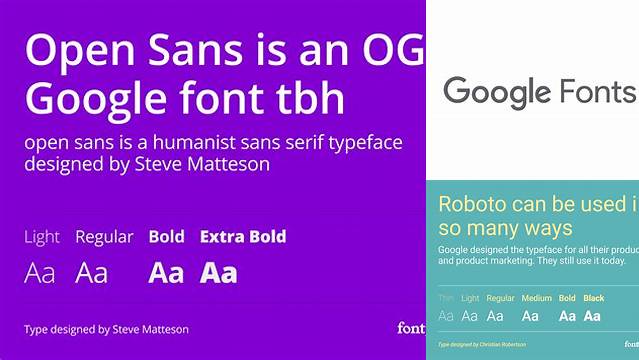
Google Fonts: Open Sans & Roboto CSS Explained
Hey guys! Let's dive into the world of web typography, specifically focusing on how to use Google Fonts, with a spotlight on two popular choices: Open Sans and Roboto. We'll explore how to integrate these fonts into your website using the Google Fonts API, looking at the CSS implementation and why these fonts are so widely used. It’s all about making your website look good and readable, right? So, let's get started! This guide will walk you through the ins and outs, making sure you understand everything clearly. No jargon, just straightforward explanations to help you get those fonts up and running smoothly. We'll cover everything from the basics of the <link>
tag to choosing the right font weights. Ready? Let’s roll!
3. Implementing Open Sans and Roboto in Your CSS
Now that you've got the fonts linked in your HTML, it's time to tell your CSS how to use them. This is where the magic really happens, transforming your website's typography. In your CSS file, you use the font-family
property to specify which font to use. For example, to apply Open Sans to all your paragraph tags, you would write: p { font-family: 'Open Sans', sans-serif; }
. Notice the sans-serif
part? It's a fallback font. If, for some reason, the Open Sans font fails to load, the browser will use a generic sans-serif font instead, ensuring that the text is still readable. Similarly, for Roboto, you can use: h1 { font-family: 'Roboto', sans-serif; }
. You can apply these styles to any element you want: headings, paragraphs, navigation, or anything else. The key is to be consistent throughout your website. Choose a primary font (like Open Sans or Roboto) for body text and a complementary font for headings. This helps create a cohesive and professional design. When you specify the font, you also have the option to choose different weights and styles within your CSS. If you've selected bold styles, for example, you can use font-weight: bold;
or font-weight: 700;
in your CSS. Choosing the right weights and styles can make a big difference in how your content is perceived. Remember to keep your design readable. Avoid using too many different fonts or styles, which can make your website look cluttered. Stick to a few key fonts and use them consistently throughout your site for the best results.
4. Open Sans: A Deep Dive into the Font
Open Sans is like the trusty friend of the font world. It's a humanist sans-serif font designed by Steve Matteson. Its simple and straightforward design makes it incredibly versatile. Open Sans is known for its open forms and neutral, yet friendly appearance, making it ideal for both body text and headings. This is why it's used everywhere, guys! Open Sans is very readable on screens of all sizes, whether it's a phone, tablet, or desktop. Its clean lines and excellent legibility make it a go-to choice for many websites. When you're choosing Open Sans, you have a variety of weights and styles to play with, ranging from light to bold, and regular to italic. This gives you the flexibility to create a well-structured design. Open Sans has excellent spacing and character proportions, contributing to its high readability. That's one of the many reasons why so many websites and applications rely on this font. Its neutral design doesn't distract from the content, allowing your message to shine through. Open Sans is a popular choice for a good reason: It works everywhere, looks good, and ensures your content is easily accessible.
5. Roboto: Exploring Another Popular Font
Roboto, developed by Google, is a modern sans-serif typeface. It's the default font used by Android, so you know it's good! It has a dual nature, featuring a geometric structure with friendly curves. This blend makes Roboto both functional and aesthetically pleasing. Like Open Sans, Roboto comes in various weights and styles, making it easy to create a balanced and visually appealing layout. Roboto is particularly well-suited for digital interfaces due to its high legibility and its ability to adapt to different screen sizes. This is a great option for websites that put an emphasis on user experience, as it makes your content easy to read. One of the great things about Roboto is its versatility. It works well for both body text and headings, and its clean lines make your website feel modern and organized. Roboto is a great choice for websites aiming for a contemporary and professional look. If you need a clean and modern font, you really can't go wrong with Roboto. It combines simplicity with style, resulting in a font that is highly functional and visually appealing.
6. Open Sans vs. Roboto: Choosing the Right Font
So, which font should you choose, Open Sans or Roboto? Both are excellent choices, but the best one depends on the specific needs of your website and your personal style. Open Sans is generally regarded as more neutral and friendly. Its open forms and clear design make it an excellent choice for readability in all settings. If you want a friendly, welcoming feel, then Open Sans might be the best fit. Roboto, on the other hand, has a slightly more geometric and modern feel. It is often considered more technical and structured. If your website has a more modern, tech-focused feel, then Roboto might be the perfect choice. The best way to decide is to try both fonts and see how they look with your content. Experiment with different weights and styles to find the perfect combination. Consider your target audience and the overall tone of your website. Do you want a friendly and approachable feel, or a more professional and structured appearance? Keep in mind that both fonts are very readable and designed for digital use. Ultimately, the best font is the one that looks best with your content. Both are excellent choices, but your design goals and target audience are key.